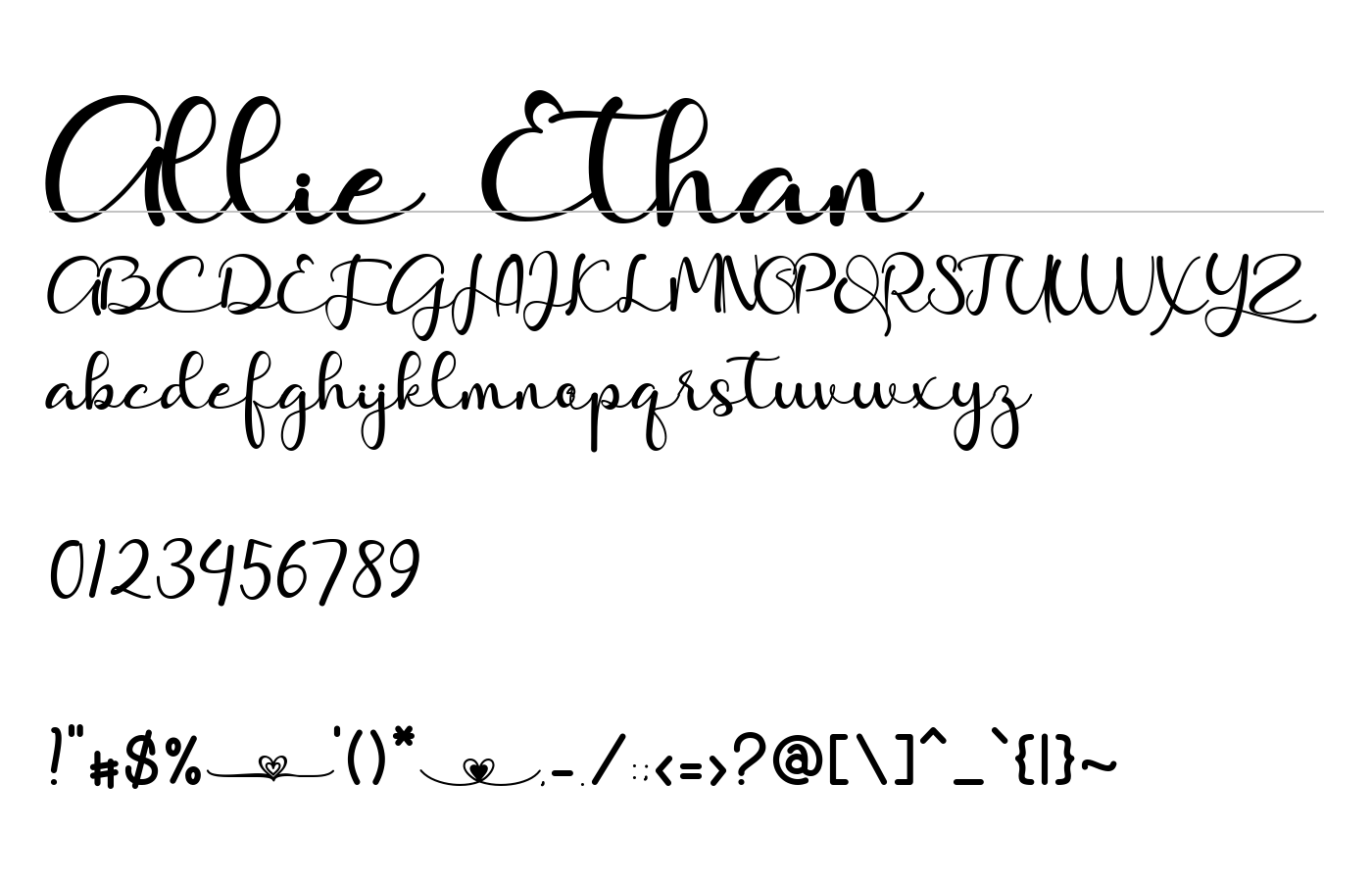
Allie Ethan is a playful and elegant script font characterized by its smooth, flowing strokes and delicate curves. With a moderately high x-height and whimsical letterforms featuring unique loops and heart-shaped flourishes, it exudes a personal and charming feel perfect for creative branding, invitations, and decorative headlines. Its light weight and airy spacing make it best suited for display use where a touch of friendly sophistication is desired.
Allie Ethan Font
About Allie Ethan Font
| Font family | Allie Ethan Font |
| Designer | Tiny Hand Letter 2021 |